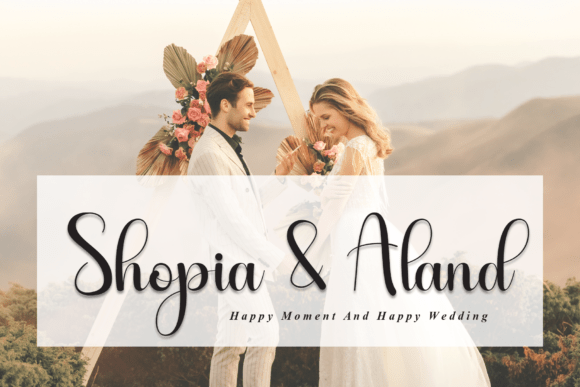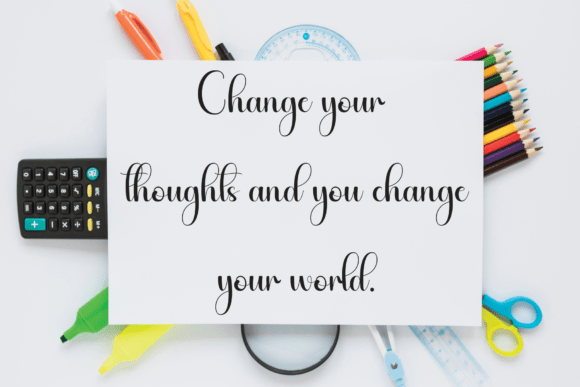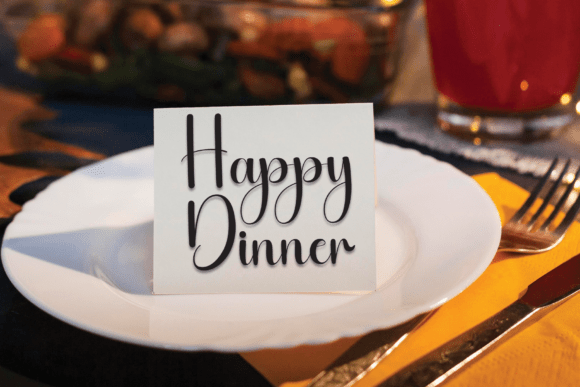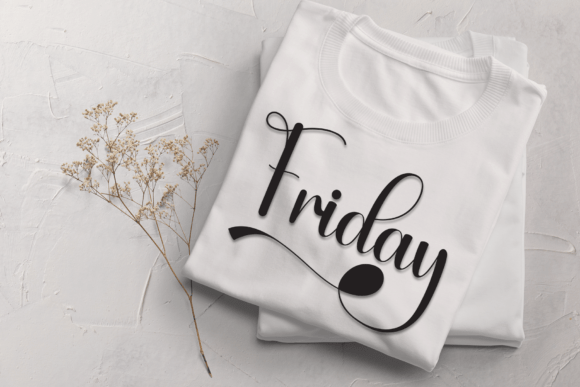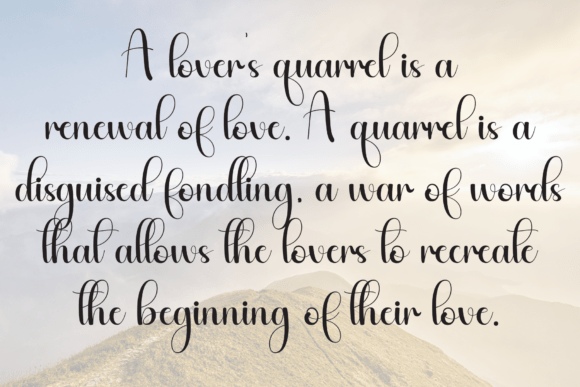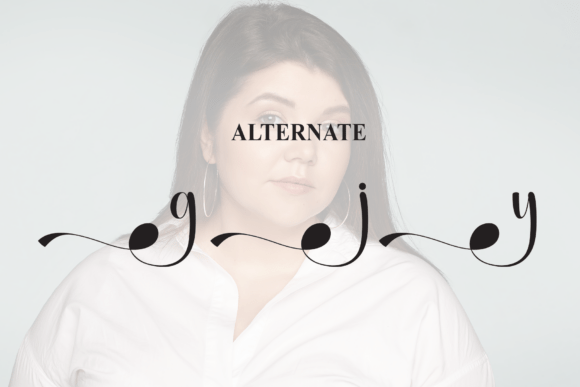
Discover the Charming Chubby Font: A Perfect Addition to Your Design Toolkit
Have you ever been in the middle of a design project, and suddenly, you’re stuck on finding the perfect font? I recall a recent experience where I was working on a wedding invitation project, and my client requested a font that was both playful and elegant. After hours of searching, I stumbled upon the Chubby Font, and it instantly became the star of the show! In this article, we’ll dive into the world of Chubby Font, exploring its features, and how to make the most of it in your designs.
A Personal Review: What I Love About Chubby Font
So, what makes Chubby Font so special? Here are a few things that I absolutely adore:
• Unique Character: Chubby Font boasts a charmingly personable and handcrafted feel, making it perfect for designs that require a touch of whimsy.
• Versatility: This font is incredibly versatile, suitable for a wide range of projects, from wedding invitations to social media graphics.
• 💕 Emotional Connection: The font’s playful and flirty nature helps create an emotional connection with your audience, making your designs more relatable and engaging.
While Chubby Font is an excellent addition to your design toolkit, there are a few minor quirks to be aware of:
• 🤔 Limited Use in Body Text: Due to its playful nature, Chubby Font might not be the best choice for lengthy body text. It’s ideal for headings, titles, or short paragraphs.
• ⚠️ Kerning Issues: As with any font, you might encounter kerning issues when using Chubby Font. Be sure to adjust the kerning to ensure optimal readability.
3. Take advantage of OpenType features, such as glyphs and stylistic alternates, to add more personality to your text.
The Story Behind Chubby Font
Chubby Font was created with the intention of bringing a touch of playfulness and whimsy to the world of typography. Inspired by traditional handwriting and calligraphy, this font is perfect for designers who want to add a dash of personality to their work.
What is Chubby Font best used for? Chubby Font is perfect for designs that require a playful touch, such as wedding invitations, social media graphics, and posters.
Is Chubby Font suitable for body text? While Chubby Font can be used for short paragraphs, it’s not ideal for lengthy body text due to its playful nature.
Does Chubby Font support OpenType features? Yes, Chubby Font supports OpenType features, such as glyphs and stylistic alternates, which can be used to add more personality to your text.
With its charmingly personable and handcrafted feel, Chubby Font is sure to become a staple in your design toolkit. Whether you’re a seasoned designer or a creative hobbyist, this font is perfect for adding a touch of whimsy and playfulness to your designs.